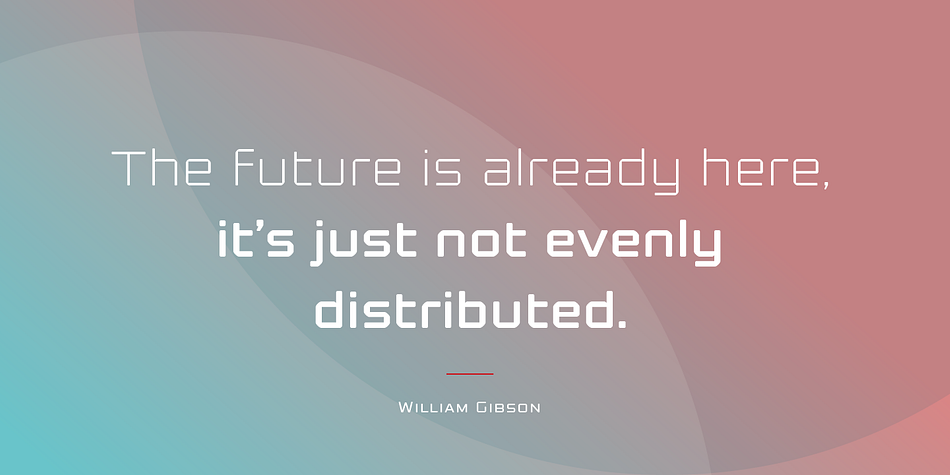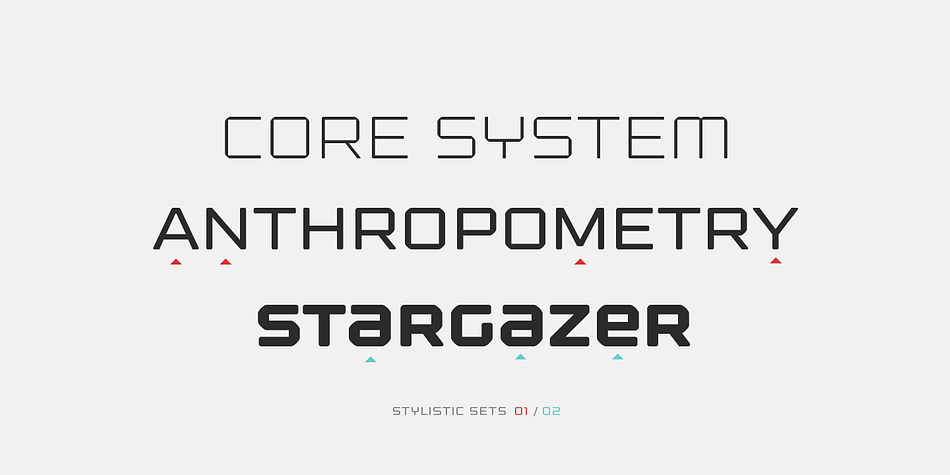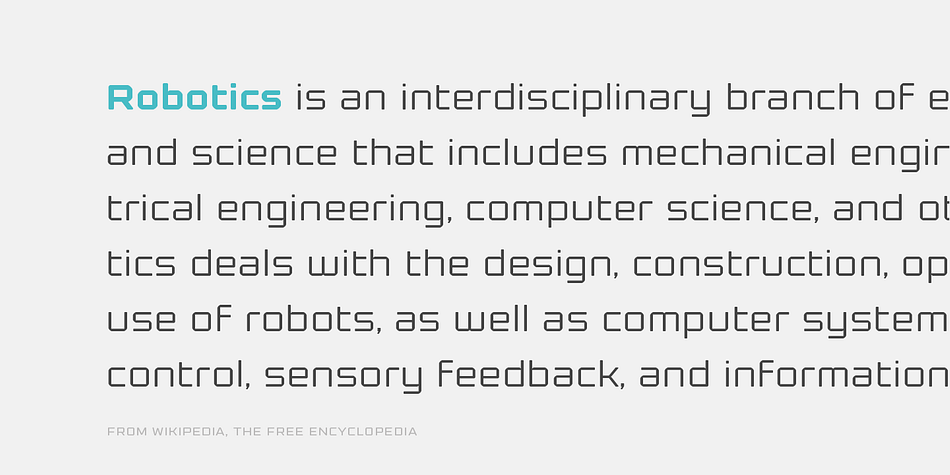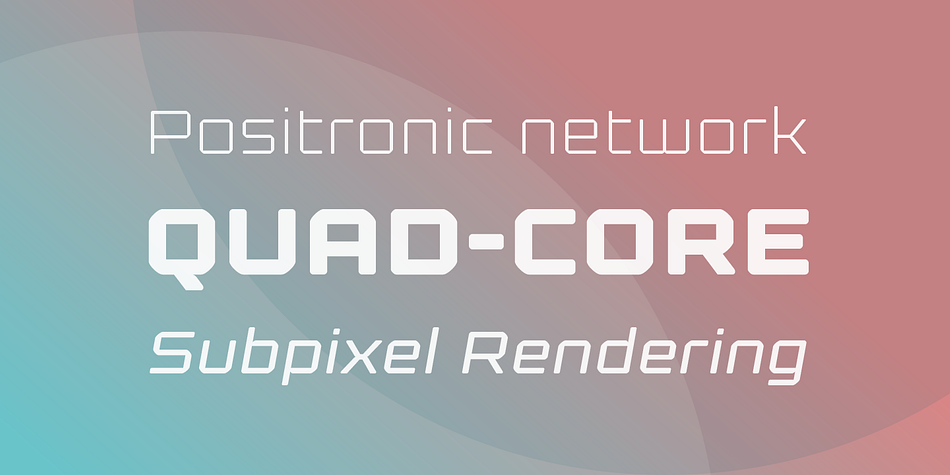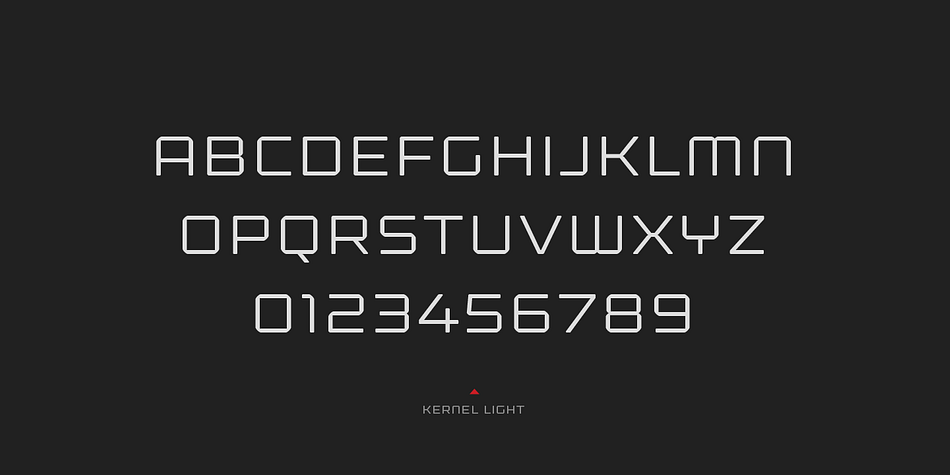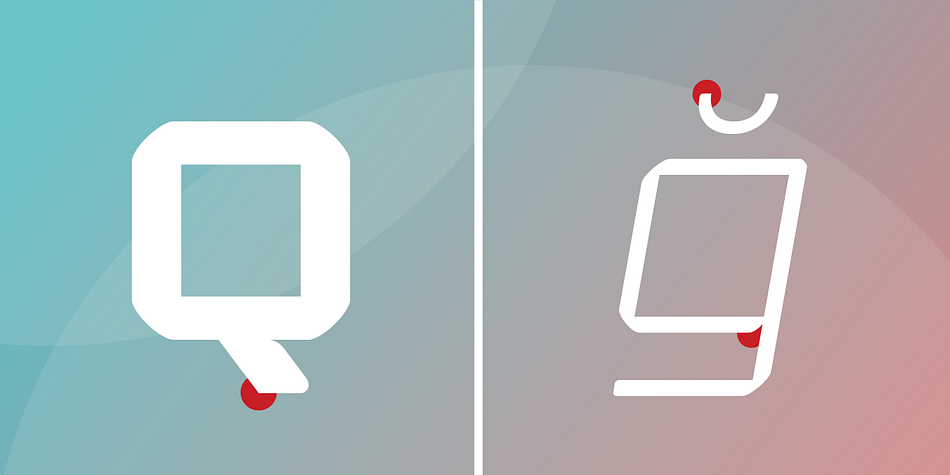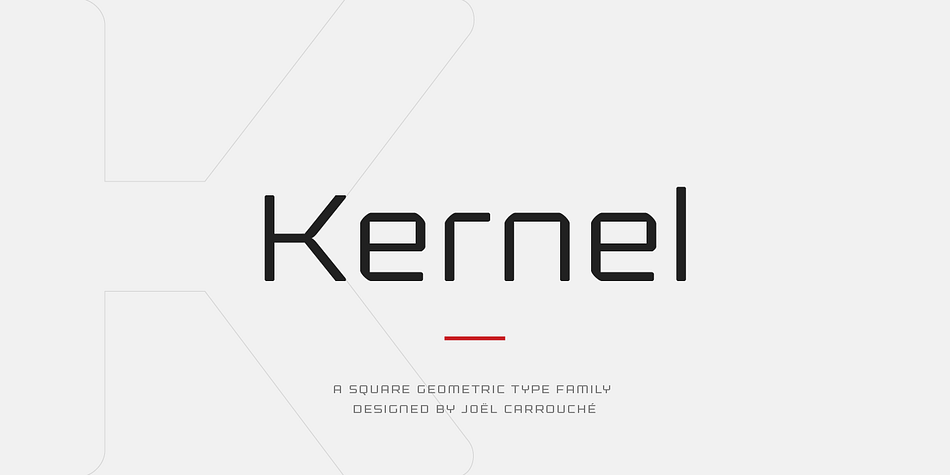
Designed by Joël Carrouché, Kernel is a sans serif font family. This typeface has eighteen styles and was published by JCfonts.
Kernel is a square geometric type family coming in six weights, with matching obliques and small caps. The design mixes slightly rounded terminals and shoulders with straight square counterforms, giving the shapes a strong masculine and futuristic look, great for applications like innovation, technology, sports and of course, sci-fi !
The fonts, delivered in Opentype format, include diacritics for most European languages and come with a variety of Opentype features : two stylistic sets, tabular figures, case sensitive forms, fractions and more.